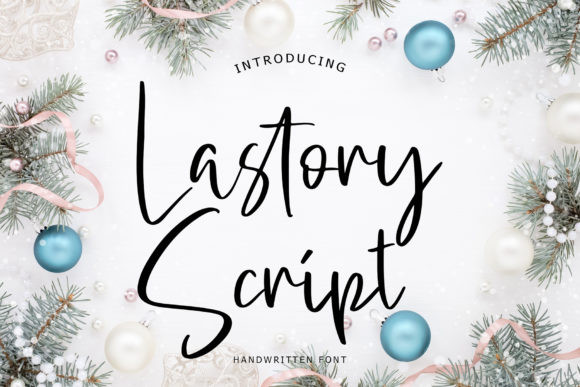
Lastory Font
Lastory is a simple and trendy handwritten font. It looks perfect on branding projects, flyer designs, logos, t-shirt designs, social media posts, advertisements, product packaging, and so much more.